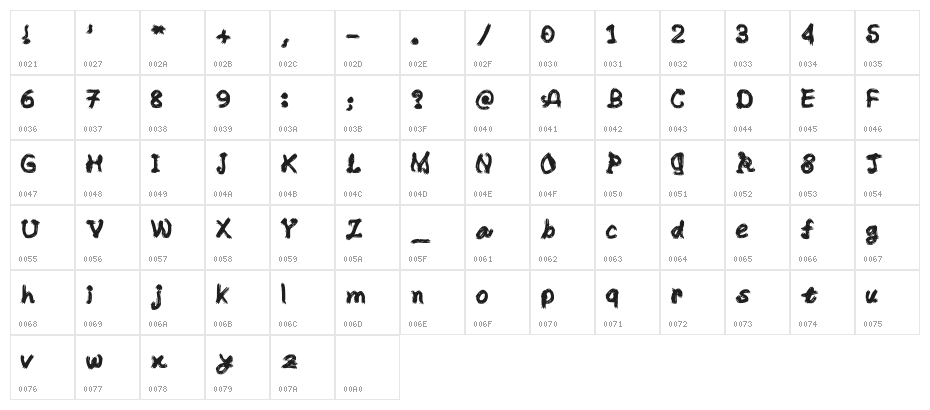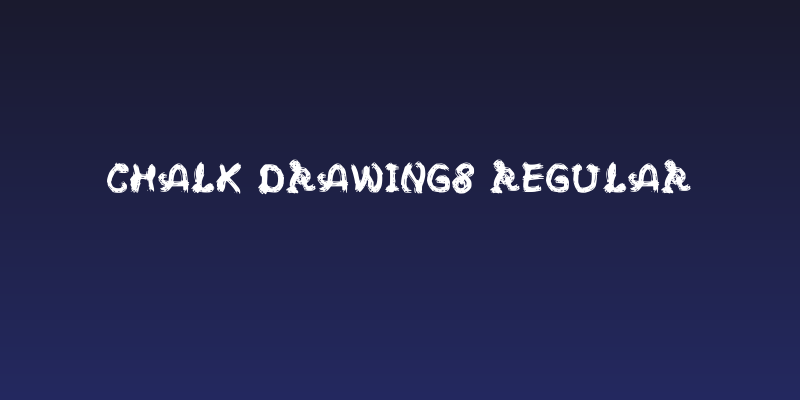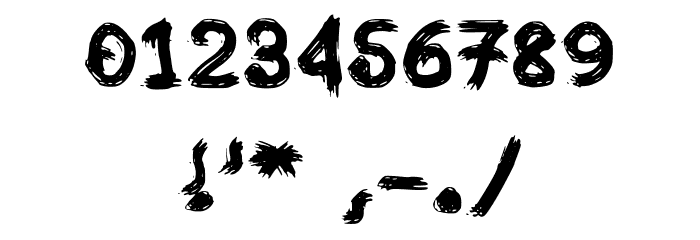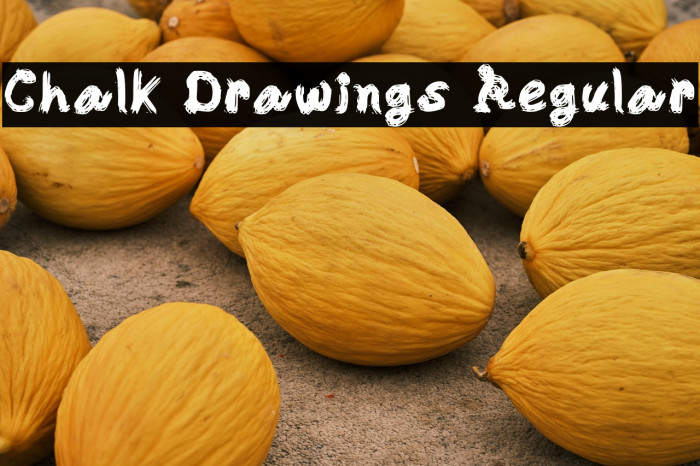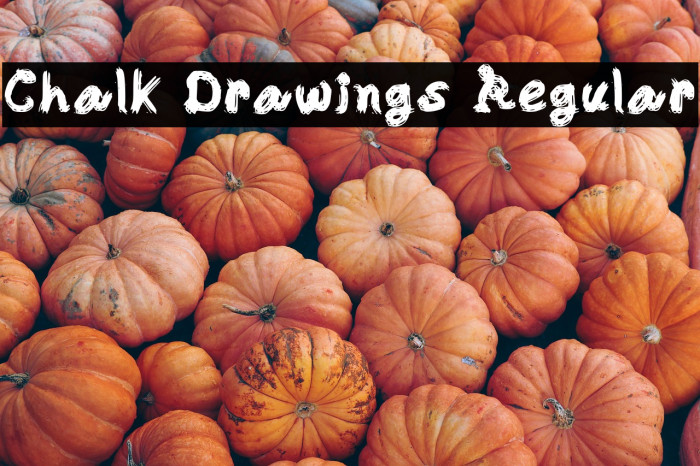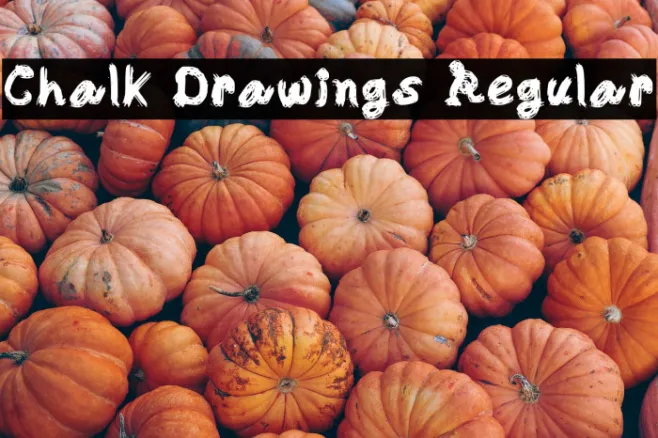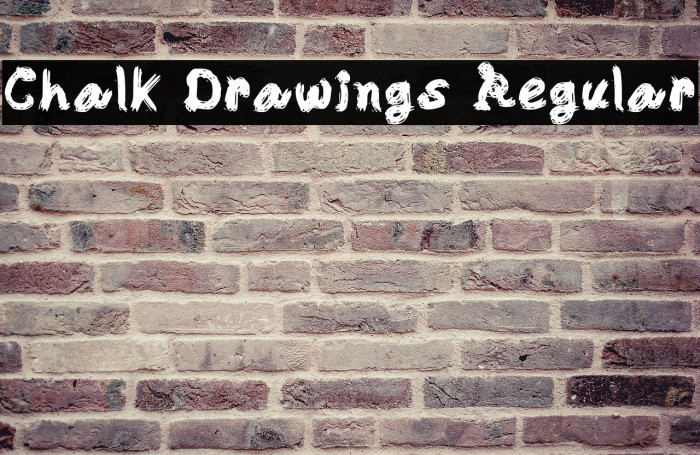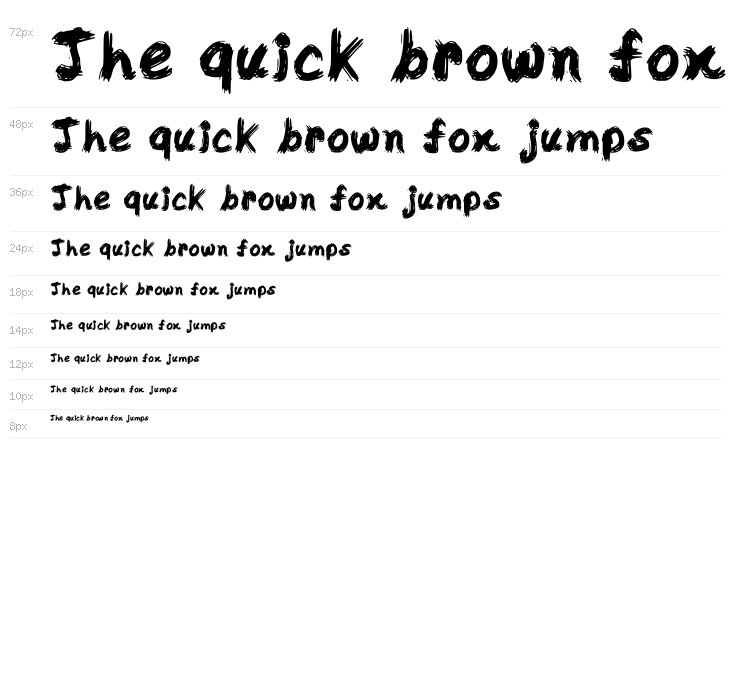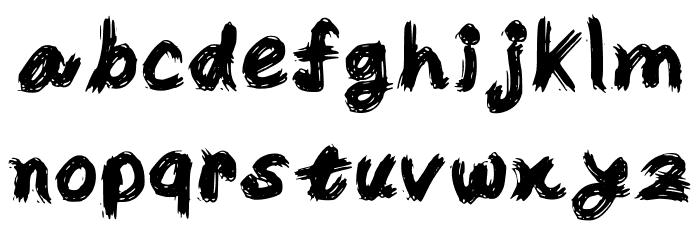
Chalk Drawings Regular Font
Chalk Drawings Regular Description
This font exudes a playful and artistic vibe, reminiscent of chalk drawings on a blackboard. The characters are bold and expressive, with a rough, textured appearance that mimics the effect of chalk. Each letter has a unique, hand-drawn quality, making it ideal for projects that require a personal touch. The uppercase and lowercase letters maintain a consistent style, with slightly exaggerated curves and strokes that add to the overall dynamic feel. Numbers and special characters follow the same design principles, ensuring a cohesive look across all elements.
| Overall Style | Playful, Artistic |
| Proposed Projects | Ideal for educational materials, children's book covers, playful branding, and artistic posters. |